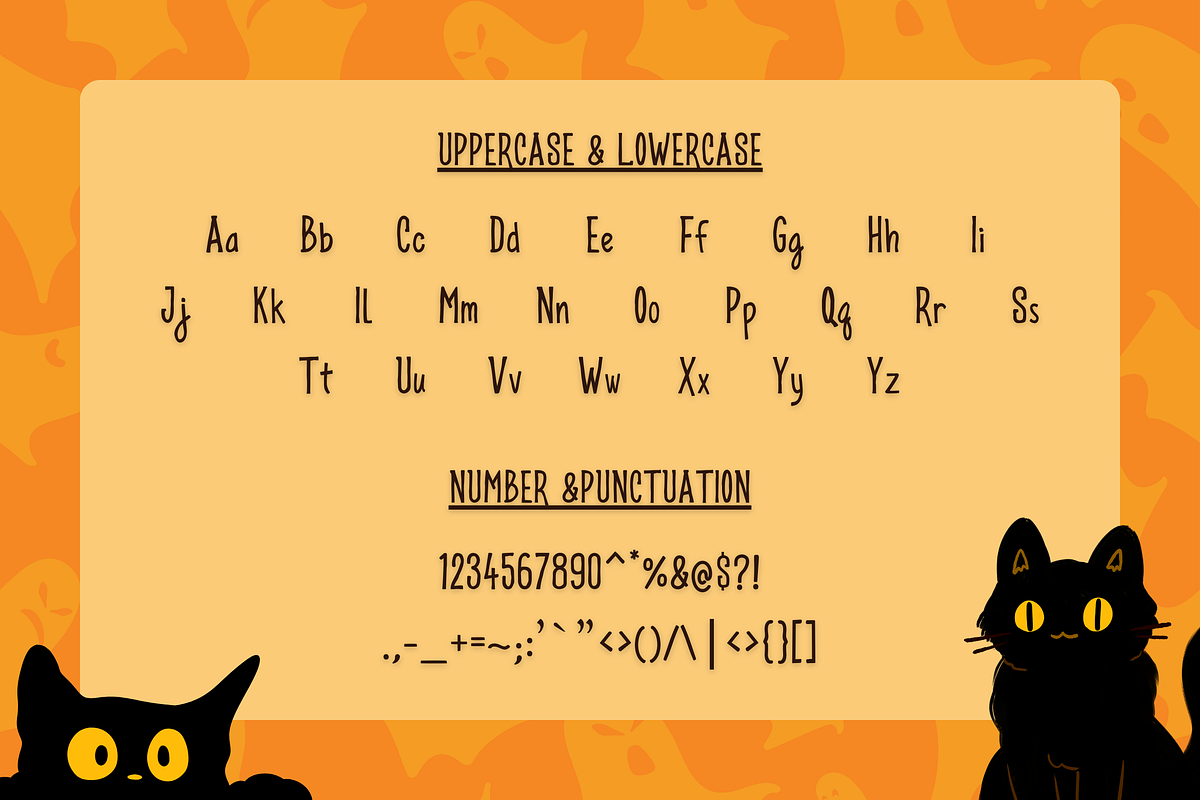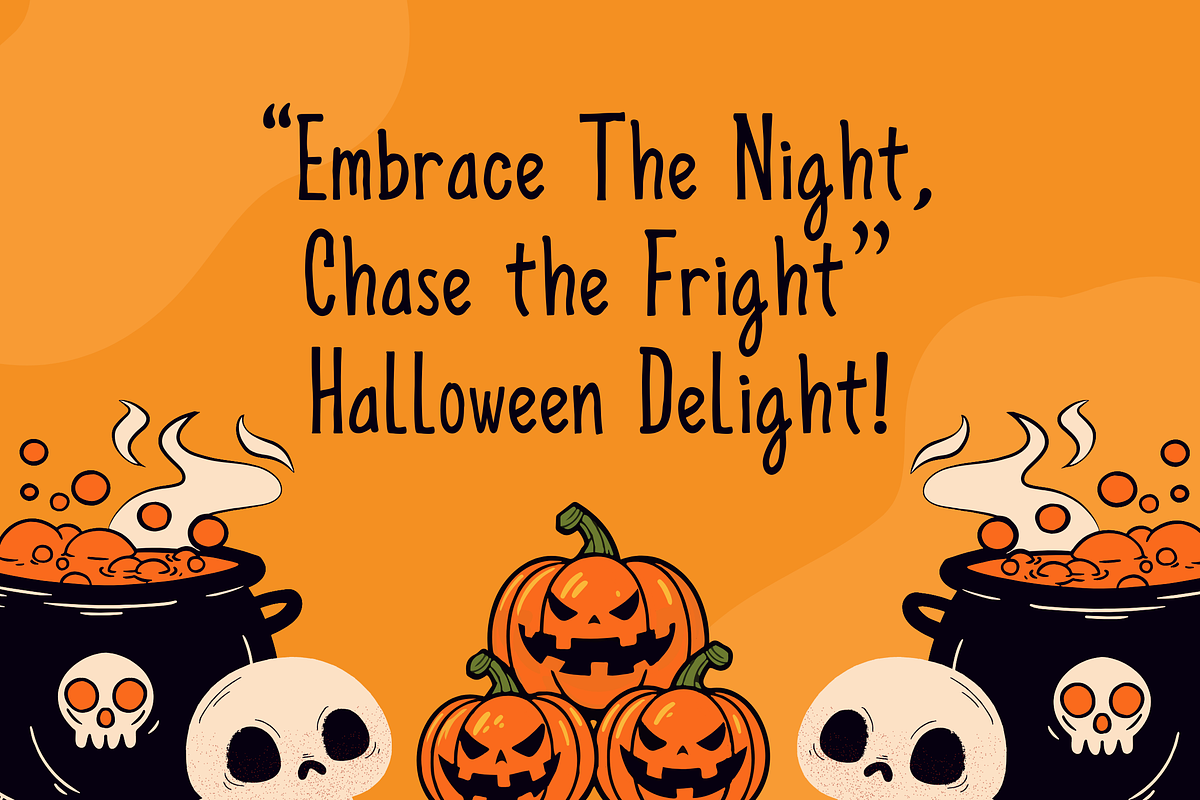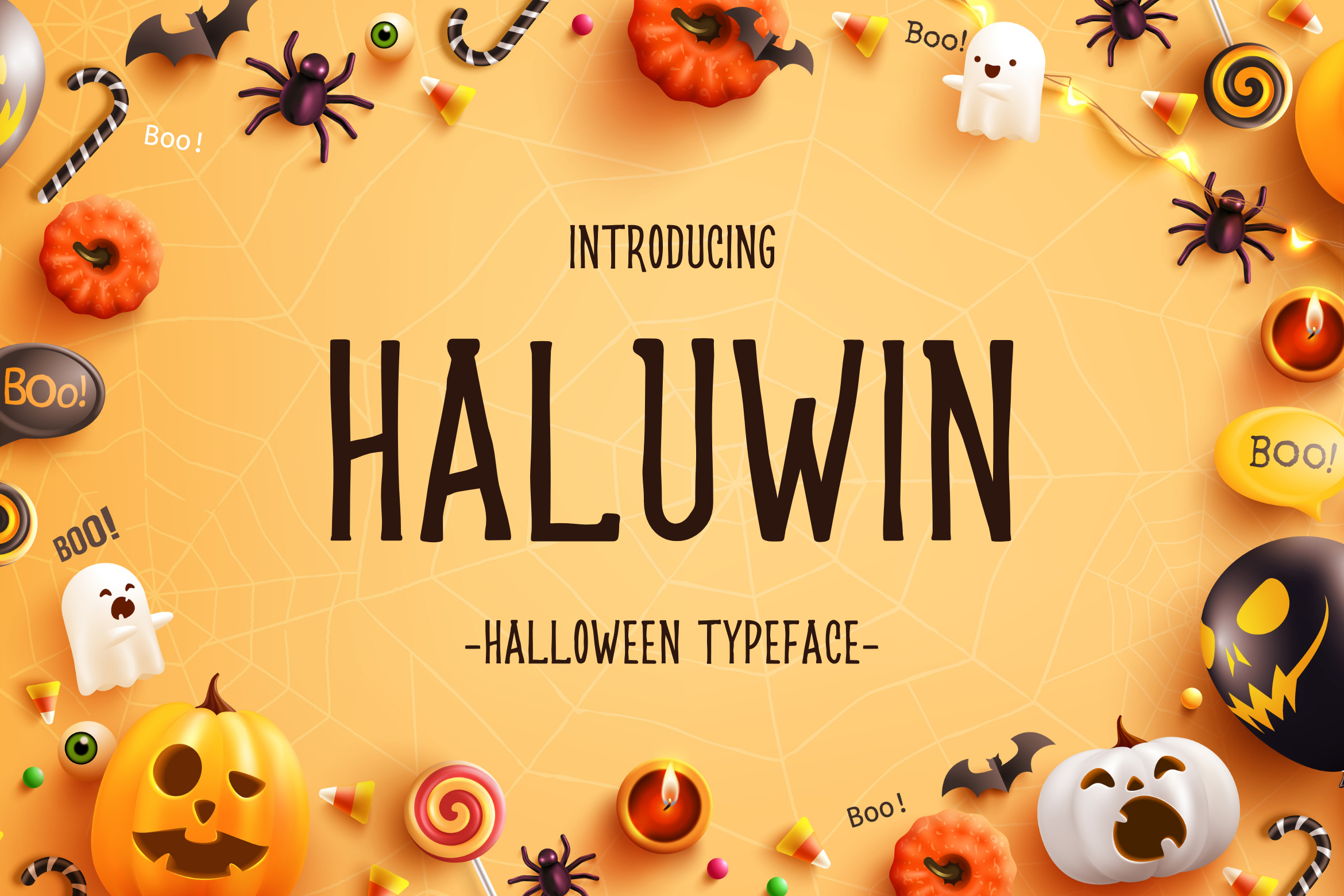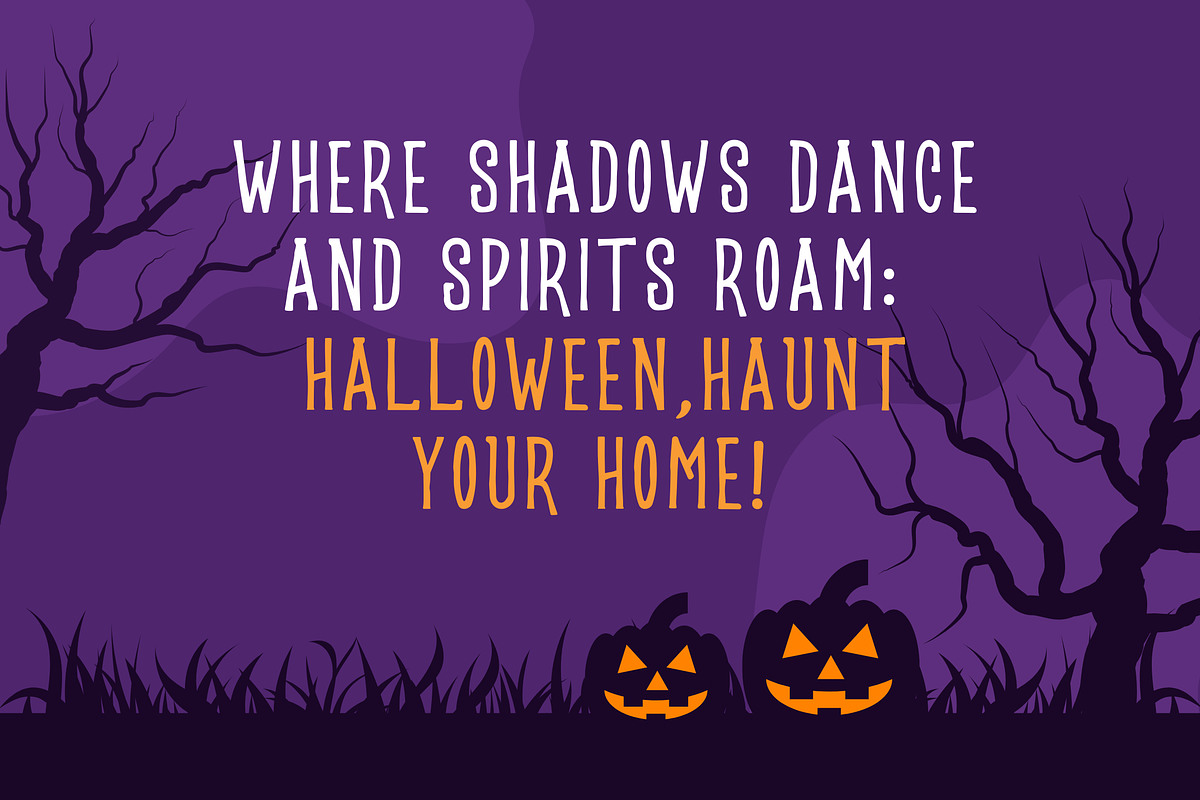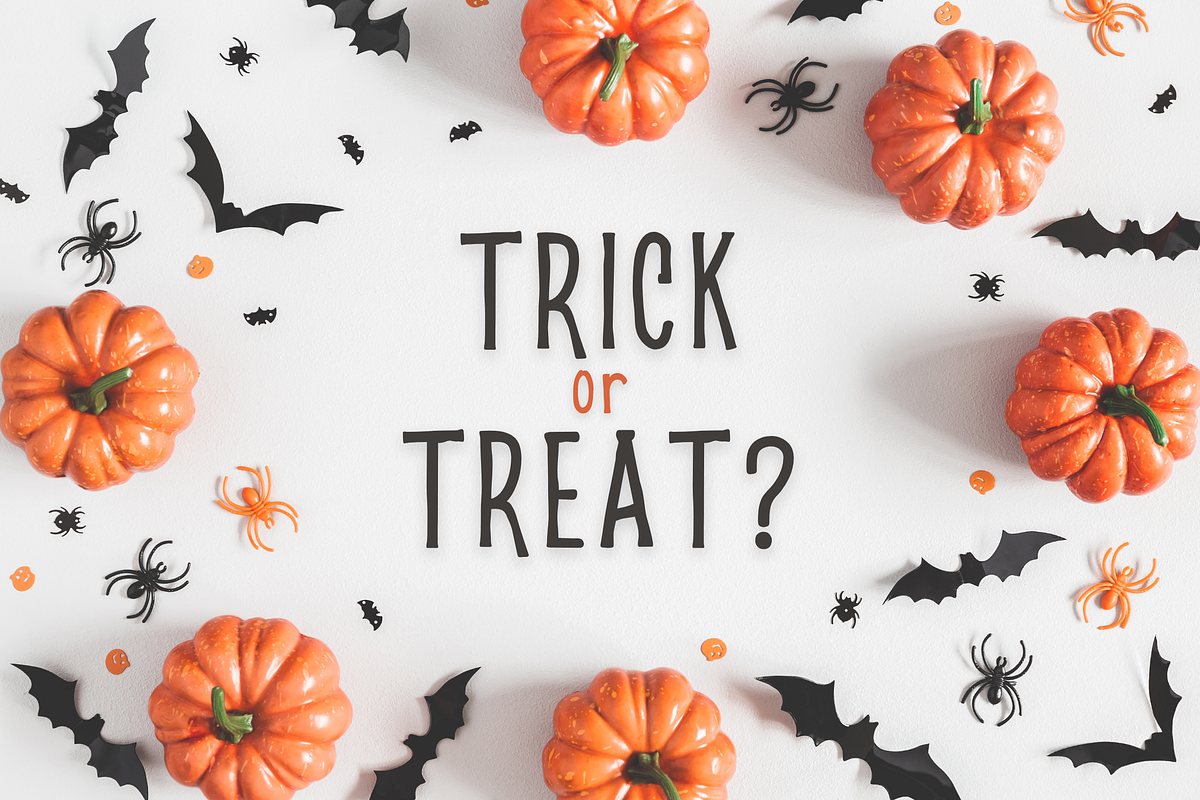
Haluwin | Halloween Font
Haluwin font is characterized by a serif font with a cool and modern letter design. The serif font style also adds a simple and attractive feel that is approachable, making it a friendly and attractive choice for any project.
- Uppercase Characters
- Lowercase Characters